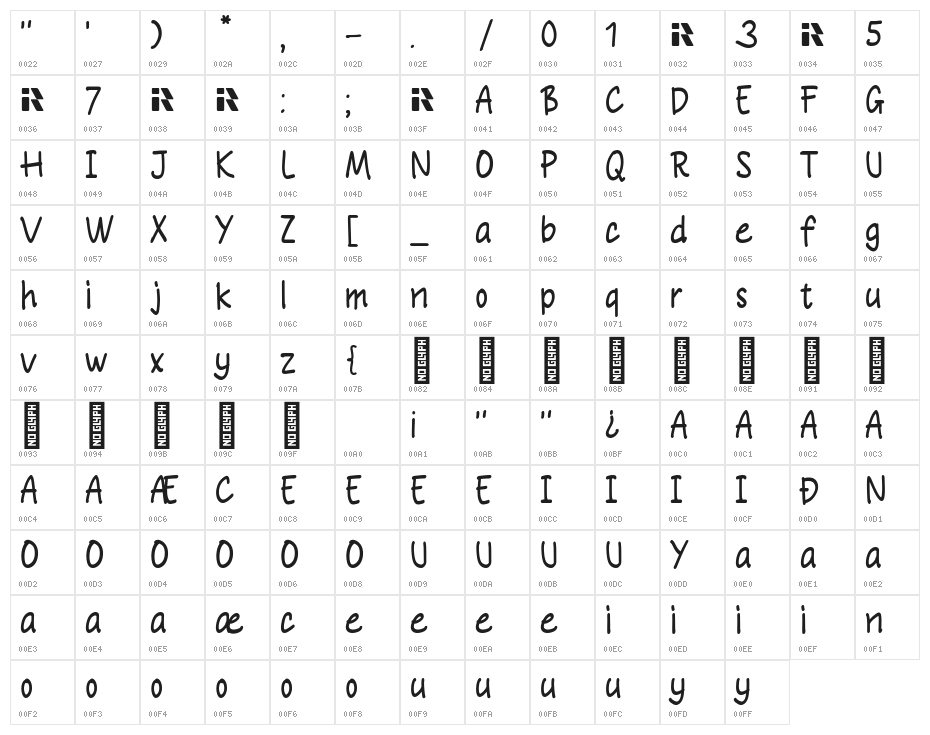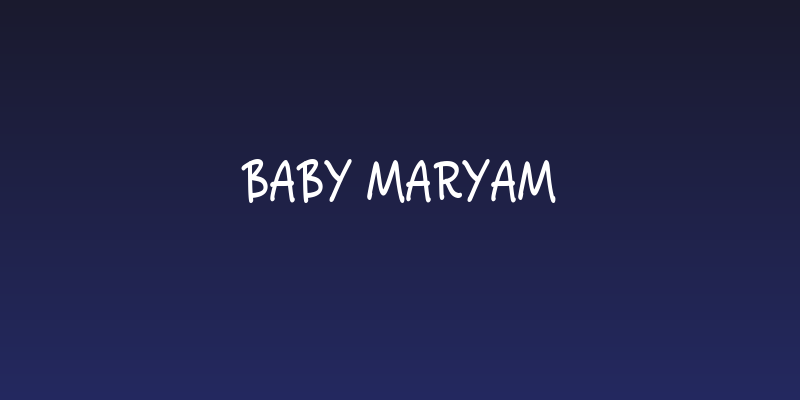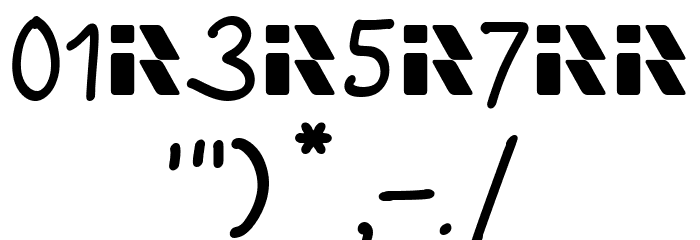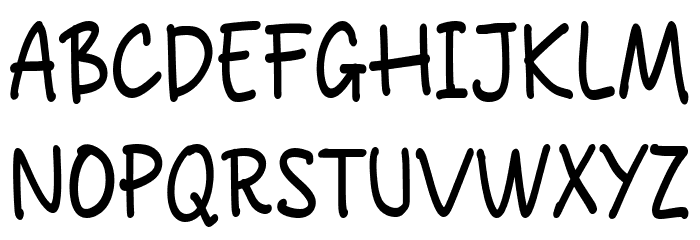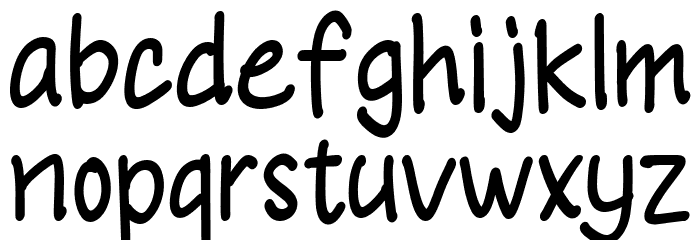
Baby Maryam Font
Baby Maryam Description
This playful and informal font features a handwritten style with a casual and friendly appearance. The letters are slightly irregular, giving it a natural and organic feel. The uppercase and lowercase characters maintain a consistent style, with rounded edges and a smooth flow. The numbers are bold and distinct, with a unique design that stands out. Special characters are creatively styled, adding to the font's whimsical nature. This font is perfect for projects that require a personal touch or a fun, approachable vibe.
| Proposed Projects | Ideal for children's books, greeting cards, personal blogs, and playful branding. |